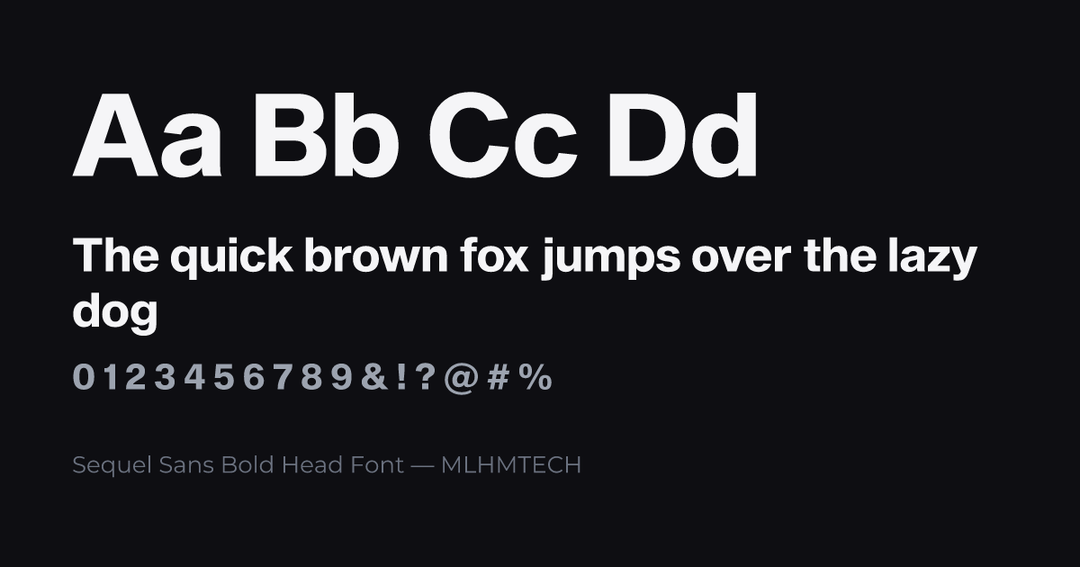
Sequel Sans Bold Head Font
Sequel Sans Bold Head is a modern, geometric sans-serif font designed for impactful headlines and branding. Its clean, bold strokes ensure high legibility and a contemporary look.
Sequel Sans Bold Head is a versatile display font that brings a clean, geometric aesthetic to your projects. Its bold weight and balanced proportions make it ideal for headlines, titles, and branding materials that need to stand out.
This font is part of the Sequel Sans family, known for its modern and functional design. The Bold Head variant is specifically crafted for large sizes, ensuring crisp edges and excellent readability even at a distance. Whether you're designing a logo, poster, or website, this font adds a professional touch.